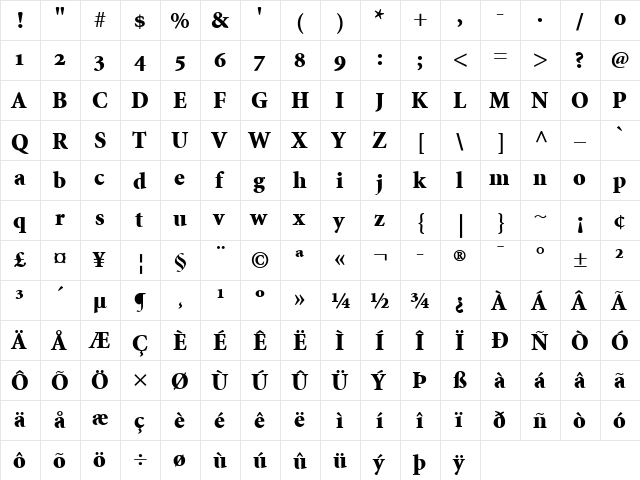
Minion BlackOsF Regular
Design Context for Minion BlackOsF Typeface
Minion BlackOsF is a composed and adaptable typeface that performs quietly and consistently across a wide range of design contexts.